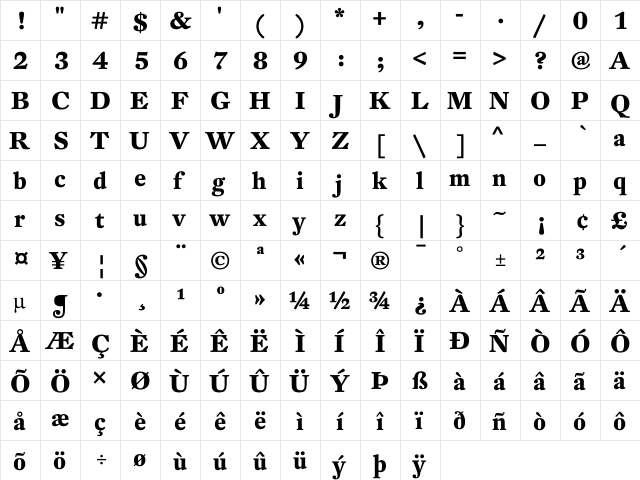
DTL Fleischmann T Bold
Design Context for DTL Fleischmann Typeface
DTL Fleischmann offers clean, dependable letterforms without strong stylistic allegiance, making it a practical choice for designers who need flexibility. The heavy weight commands attention and anchors typographic hierarchies.
Pro Tip: Use DTL Fleischmann in both headline and body roles to test its range before committing to a single application.